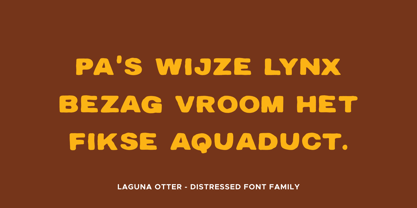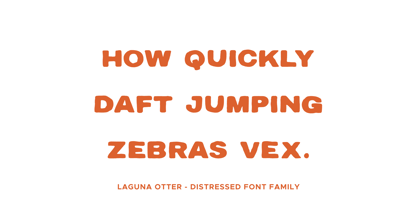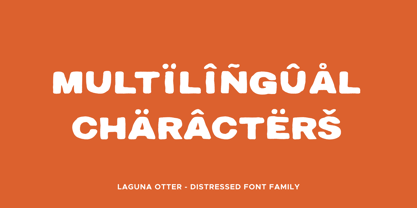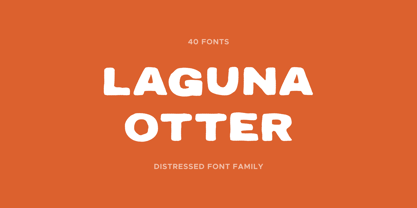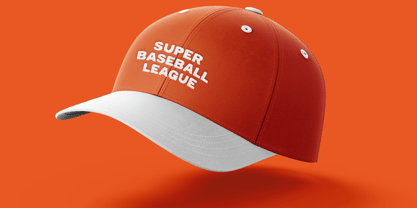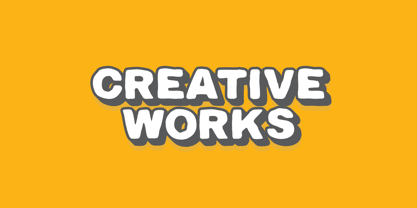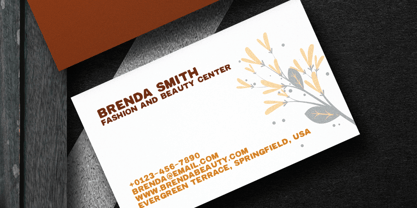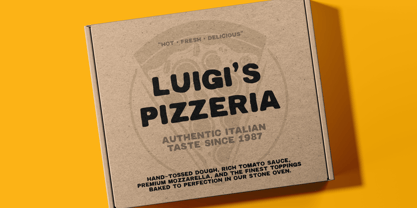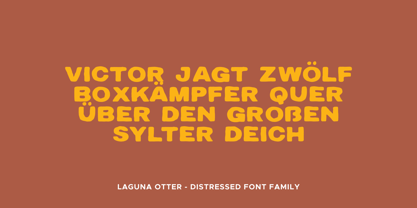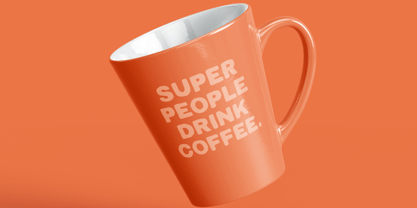
Laguna Otter is a handcrafted display typeface with a rugged, weathered personality. Designed by Mariia CAKICI, it blends handwritten energy with eroded textures for authentic vintage appeal. Perfect for posters, branding, packaging, apparel, album covers, signage, logos, and creative editorial work. With 40 versatile styles including Regular, Italic, Outline, Brush, Cut, Rough, Rust, Scratch, Worn, Ink, Grit, and Eroded variations, Laguna Otter offers expressive flexibility for bold design projects. Its distressed charm and organic strokes make every word feel lively, artistic, and full of character.